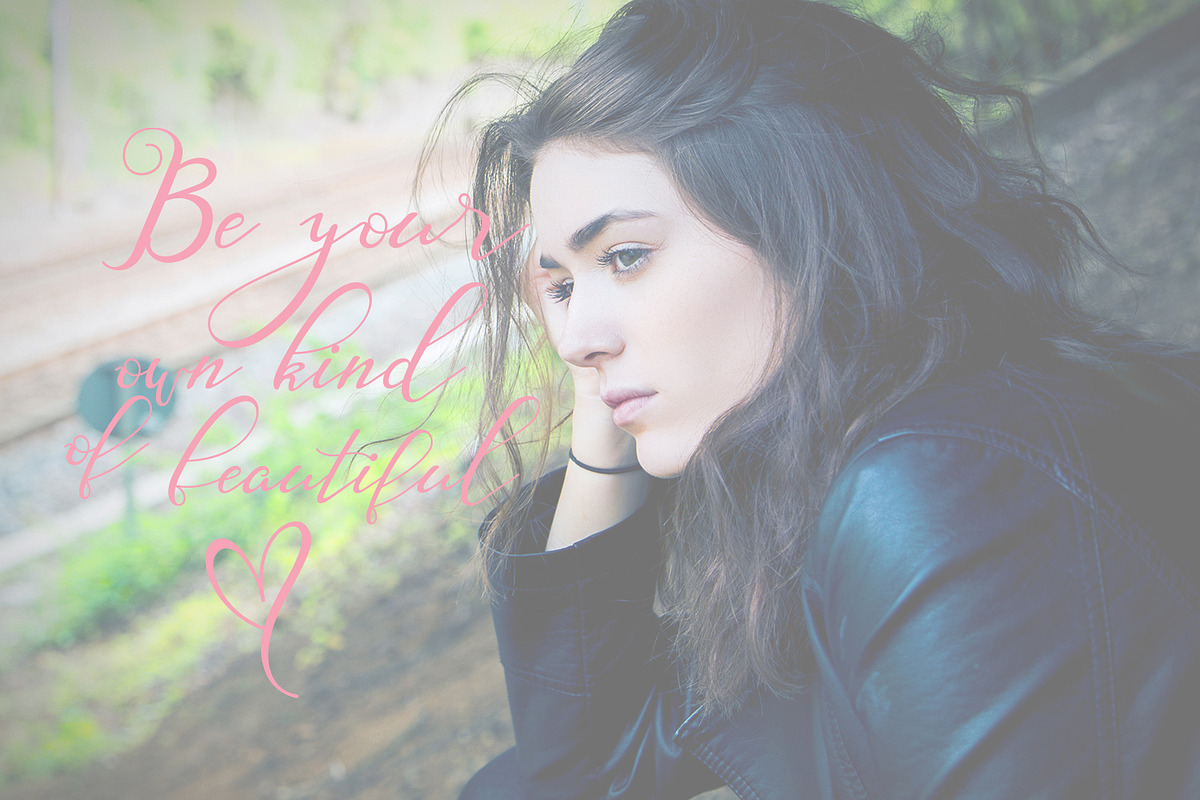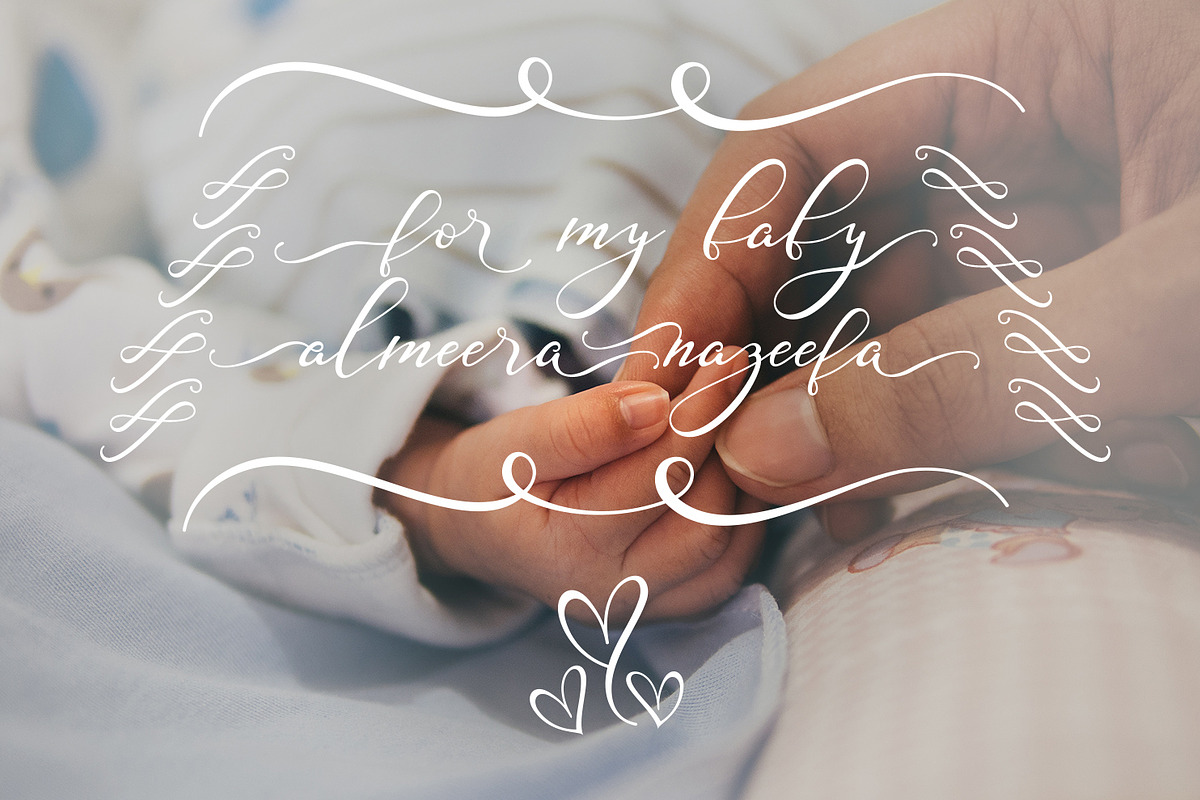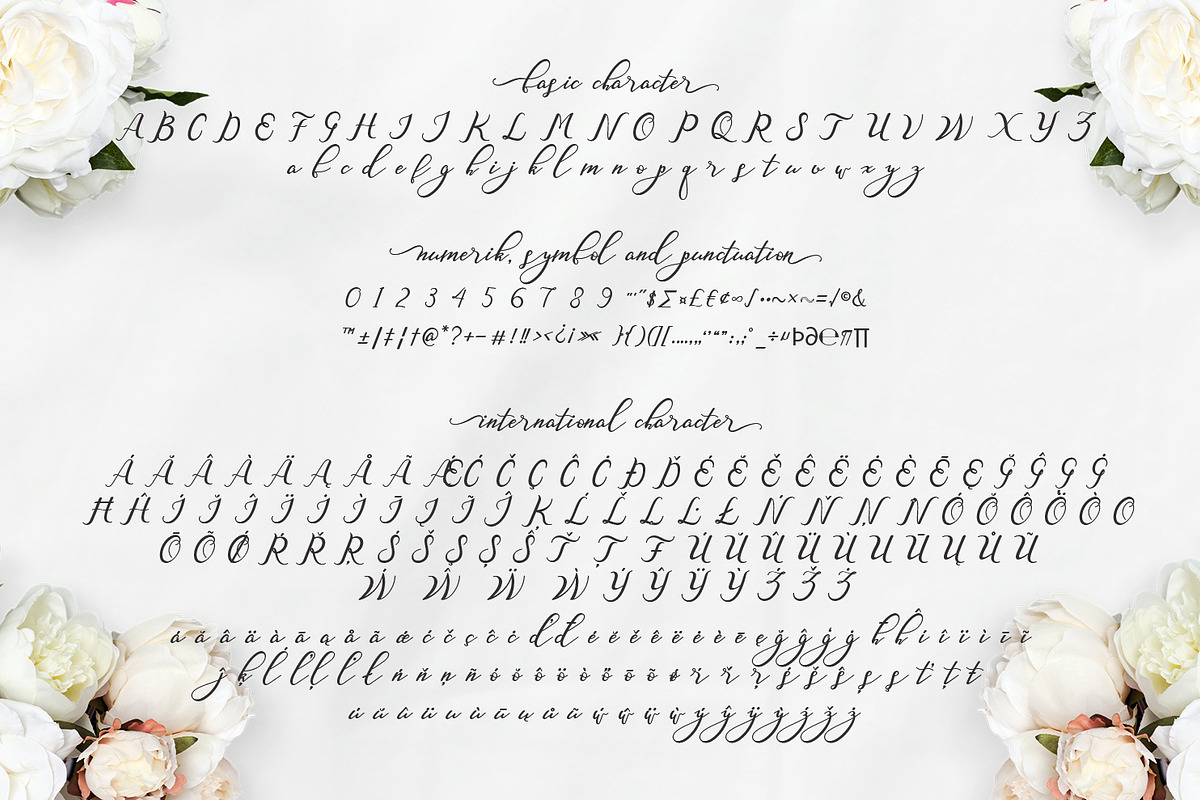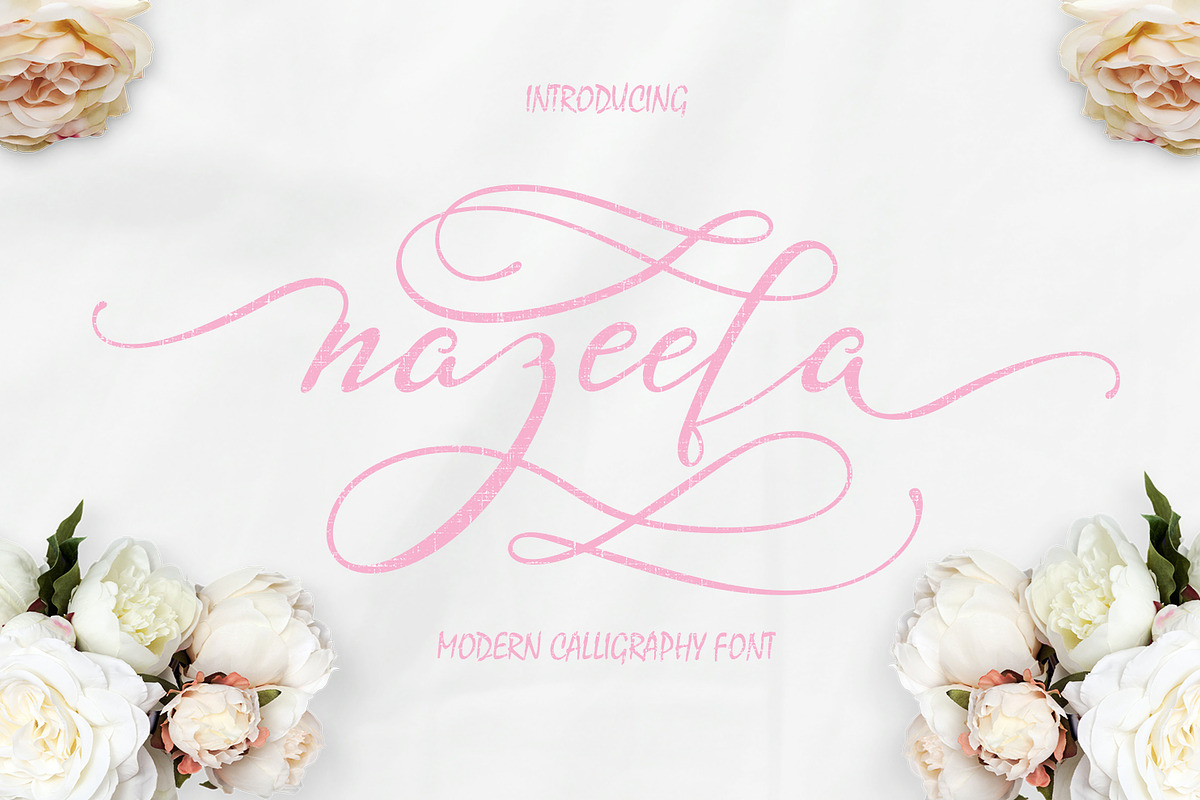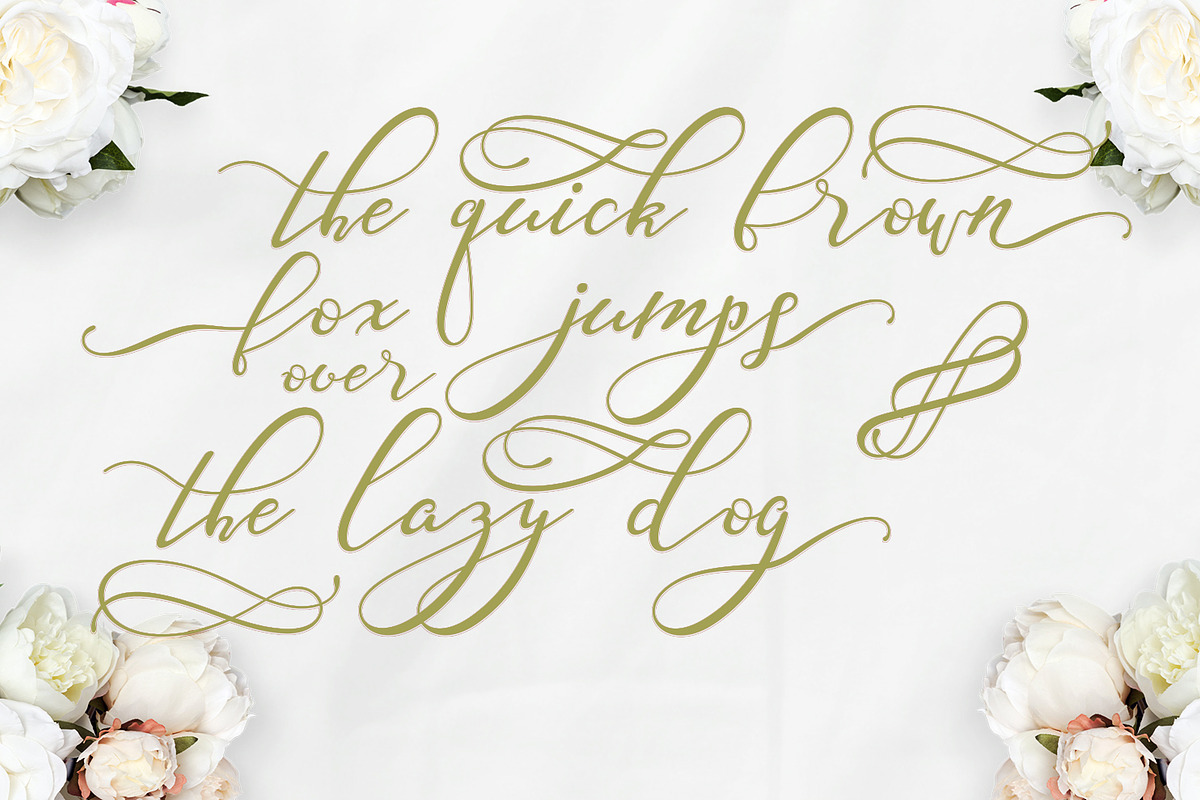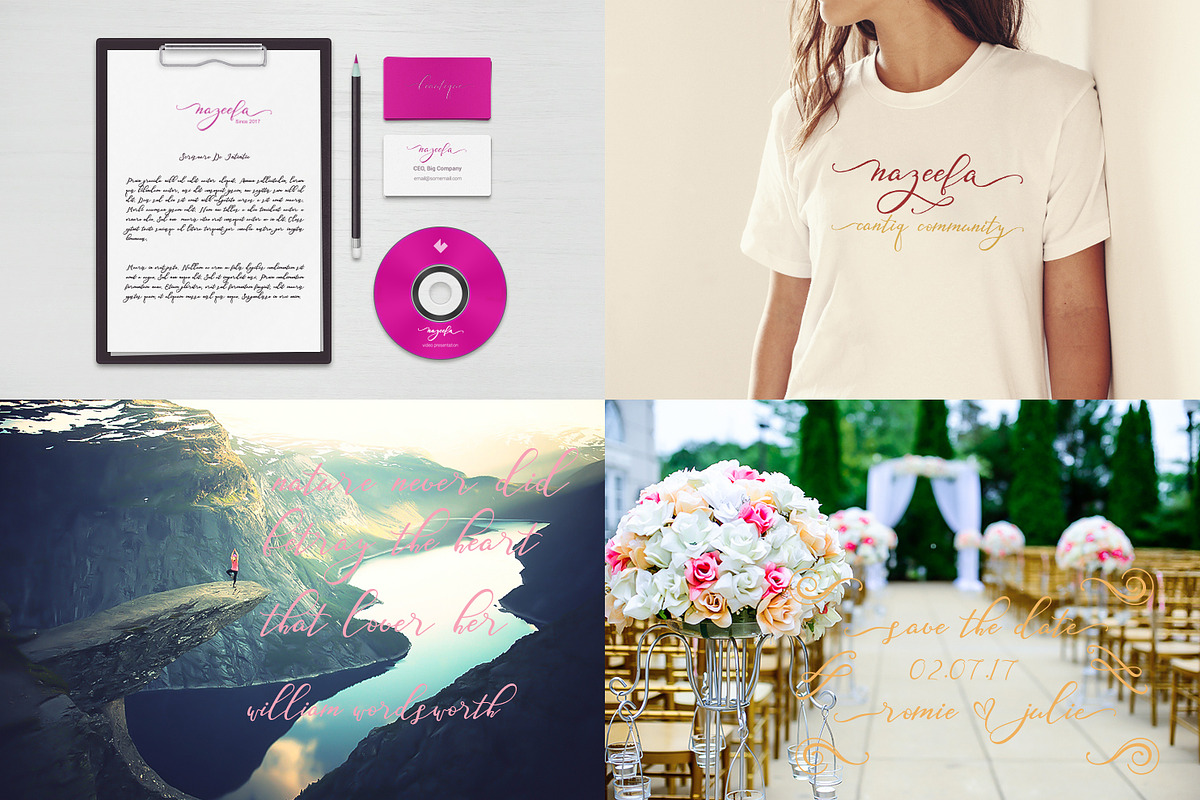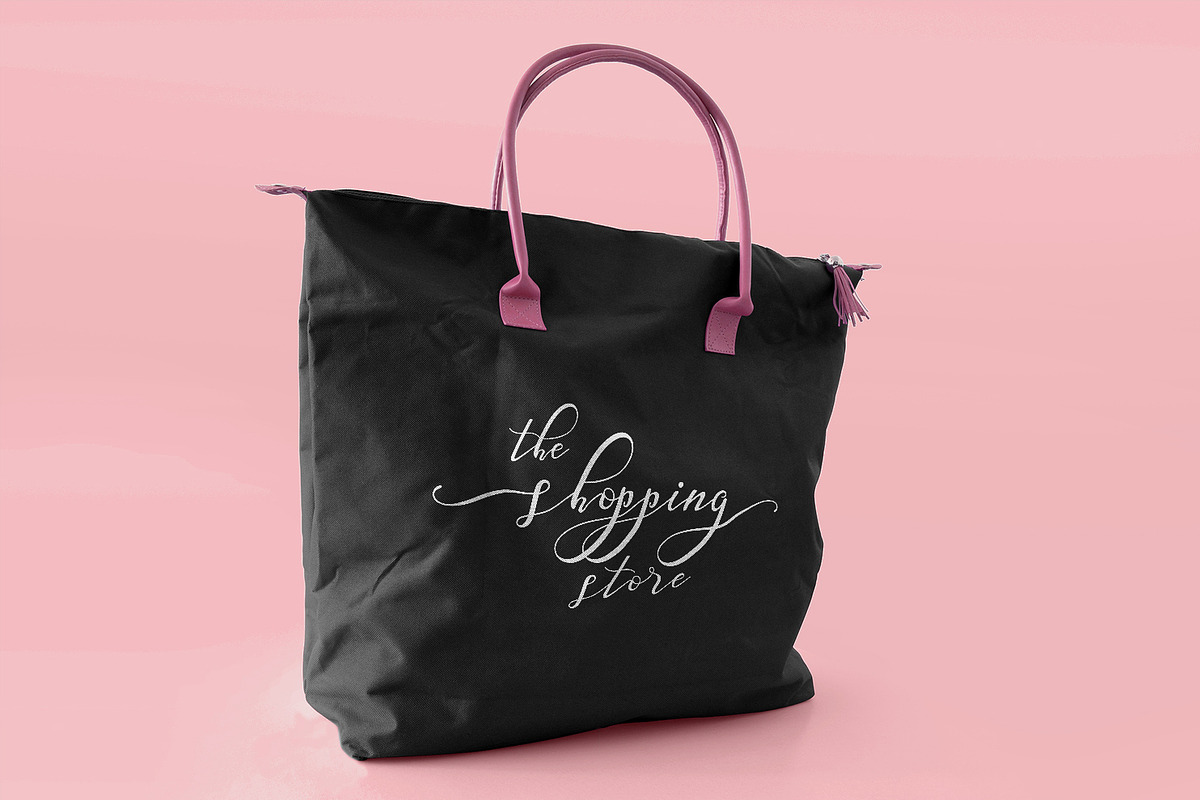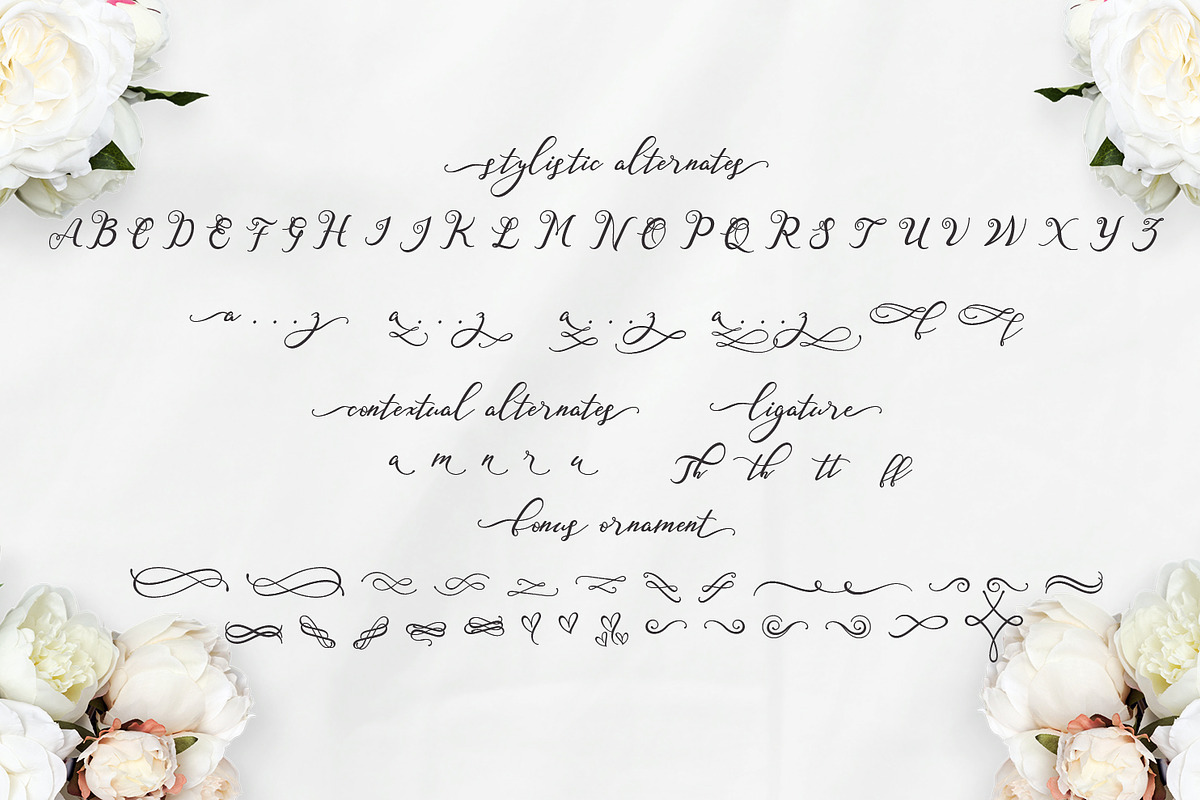
Nazeefa Script Font (30% OFF) by AQR Studio is a font selected for branding, posters, packaging, typography.
- Nazeefa features with : Basic Glyphs, Numerals, Symbol and punctuation Stylistic Sets 1 - 6 Stylistic Alternates Ligatures and Discretionary
- Nazeefa Ornament Ornament
- Nazeefa Script
Nazeefa Script Font (30% OFF) by AQR Studio fits naturally into Branding, posters, packaging, typography.